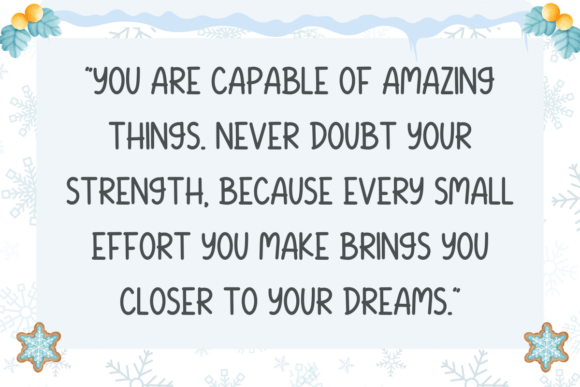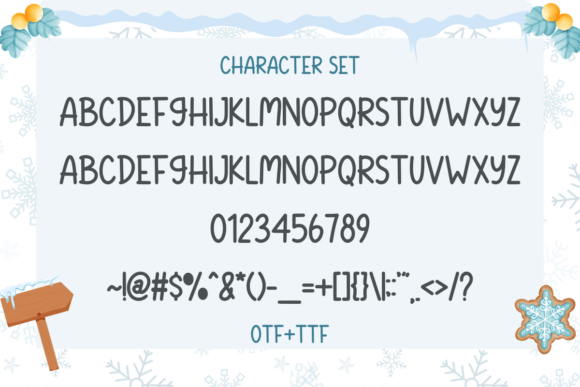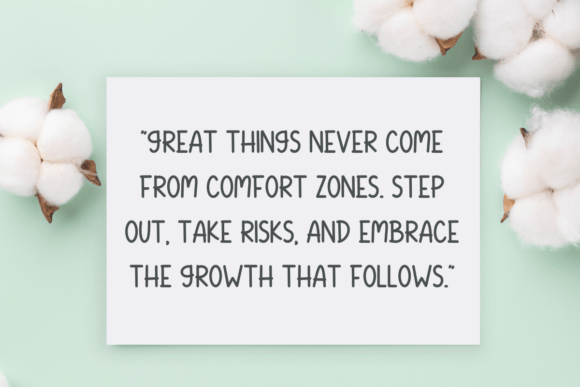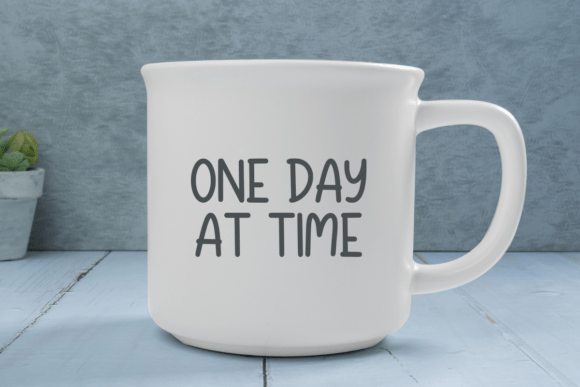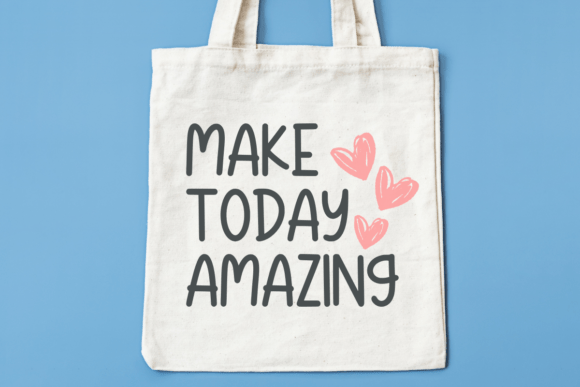
Introduction to Snow Blue Font
Do you remember that moment when you finally find the perfect font to match your creative vision? It’s like a breath of fresh air for your design projects. For me, that moment came when I stumbled upon the Snow Blue Font. This delightful font is a game-changer for crafters, designers, and makers alike, and I’m excited to share its awesomeness with you.
Whether you’re working on a new craft project, creating digital stickers, or designing greeting cards, the Snow Blue Font is an ideal choice. Its cute and friendly style makes it perfect for a variety of creative projects, from Cricut to sublimation, and even high-quality printables. And the best part? It’s available for free download, making it an accessible design resource for everyone.
Key Features of Snow Blue Font
- High-quality, vector-based font with a transparent background, perfect for creative projects.
- Designed to be highly scalable, with a resolution of up to 300 DPI, ensuring crisp and clear typography at any size.
- Unique, modern design with a touch of elegance, making it an ideal choice for a wide range of creative projects.
- Easy to customize and manipulate, allowing for endless creative possibilities and unique design expressions.
Honest Review: Snow Blue Font
As a designer, I’m always on the lookout for high-quality fonts to elevate my creative projects. I recently had the chance to work with the Snow Blue Font, and I’m excited to share my honest review.
Here’s what I liked: ✨ The font is incredibly versatile, with a range of styles and weights to suit any design need. I also appreciated the transparent background option, which makes it easy to layer over images or other design elements. The free download was a nice bonus, too!
However, I did encounter a few limitations: ⚠️ The font doesn’t include as many language support options as I would have liked, which made it a bit tricky to use in projects with multiple language requirements. Additionally, the font file sizes were a bit large, which can impact load times.
Overall, I was impressed with the Snow Blue Font’s quality and style. While it may not be perfect, it’s a great addition to any design resource library. I’d definitely consider using it again for future creative projects.
- High-quality font with a range of styles and weights
- Transparent background option for easy layering
- Limited language support options
- Larger font file sizes
Tips for Getting the Most Out of Snow Blue Font
Use Snow Blue Font as a design resource for your next creative project. This high-quality font is perfect for creating eye-catching graphics, logos, and typography. To get the most out of it, experiment with different font sizes, colors, and styles to find the perfect combination for your design needs.
Snow Blue Font is ideal for a variety of design projects, including:
- Business logos
Yes, Snow Blue Font supports transparent backgrounds, making it ideal for designs that require a clean and minimalist look. This feature allows you to create stunning visual effects and seamless integrations with other design elements.